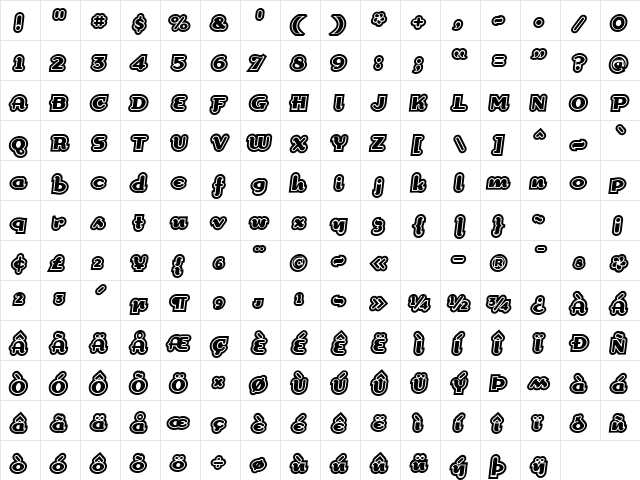
DogmaExtraOutline Roman Font Preview
DogmaExtraOutline Roman
Design Context for DogmaExtraOutline Typeface
DogmaExtraOutline brings ornamental detail and strong personality to headlines and identities, where visual impact matters more than quiet functionality.
Font Pairing: Pair with a clean neutral sans-serif for body copy to let DogmaExtraOutline's character lead without overwhelming the composition.
Pro Tip: Treat DogmaExtraOutline as the centrepiece of your typographic hierarchy. One strong heading set in a decorative face can carry an entire layout.